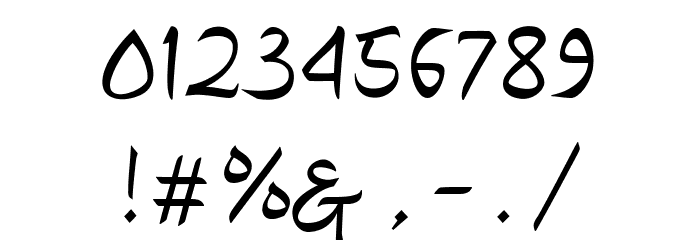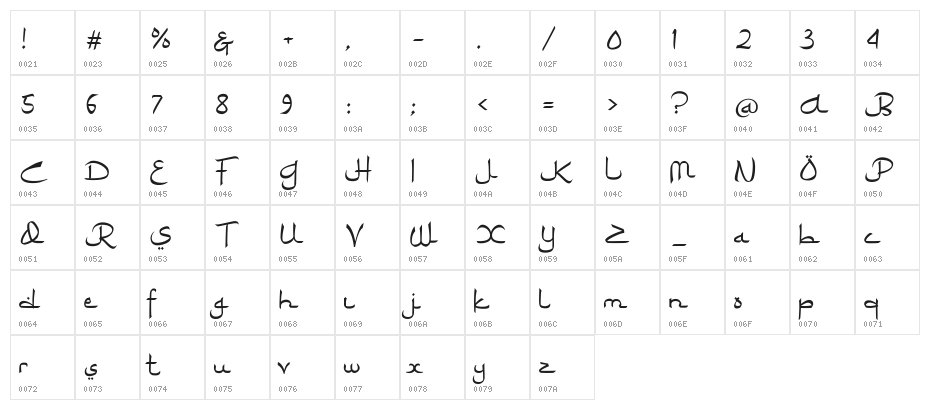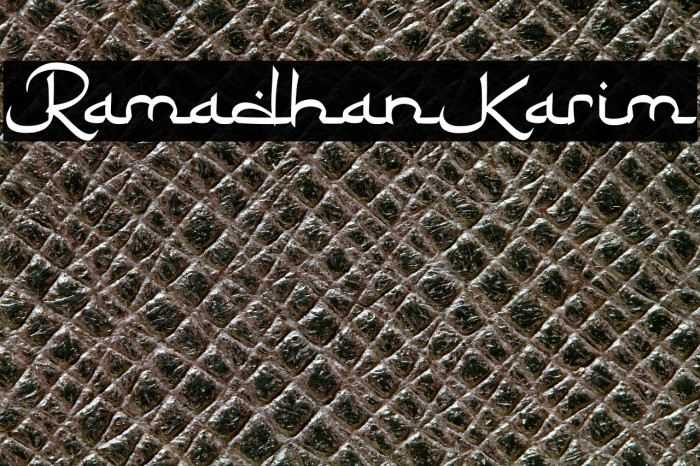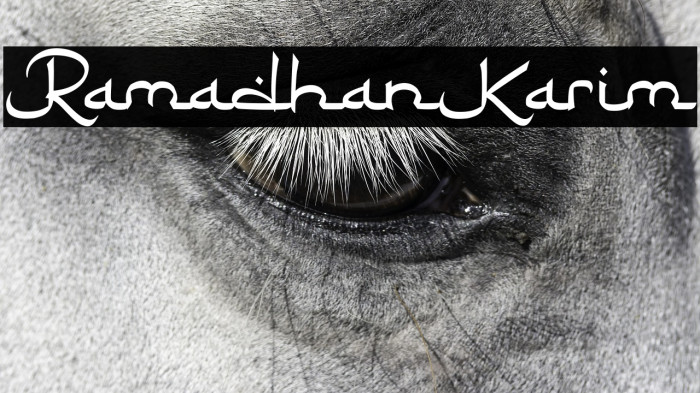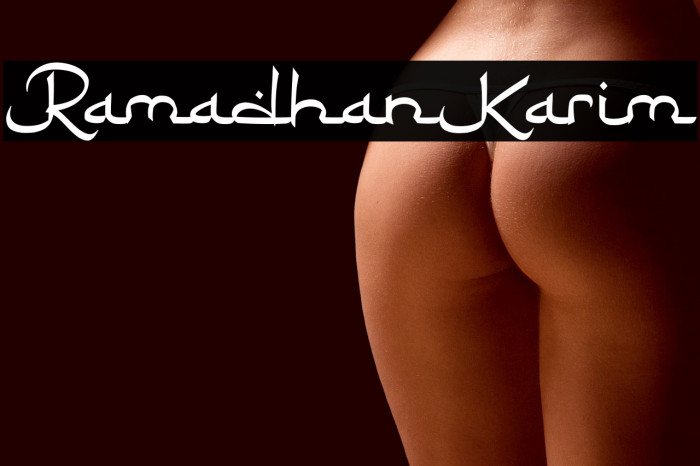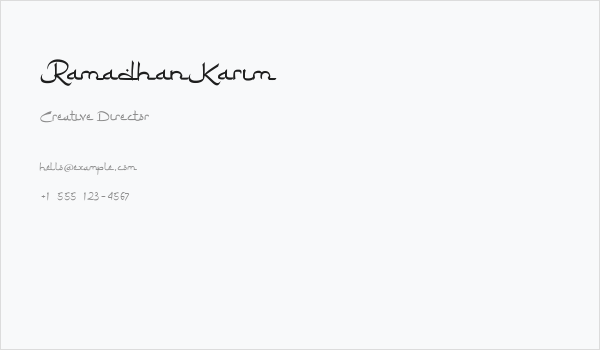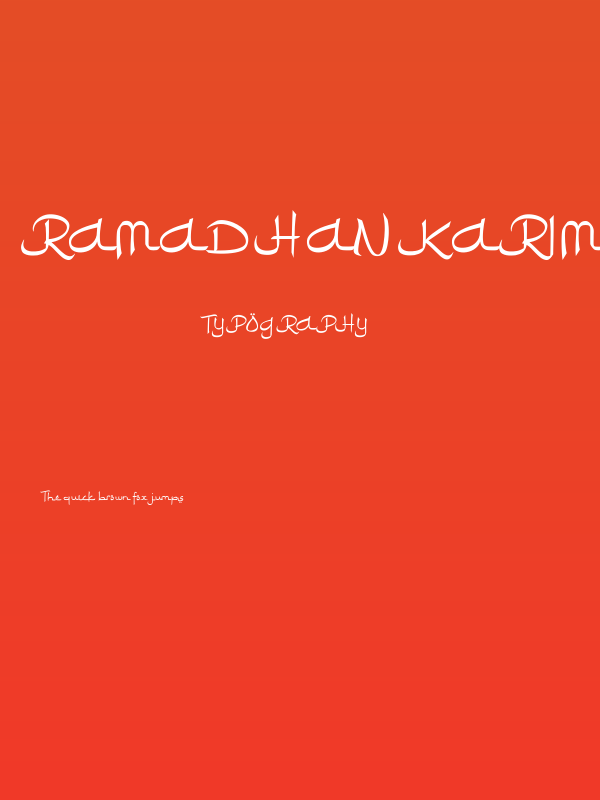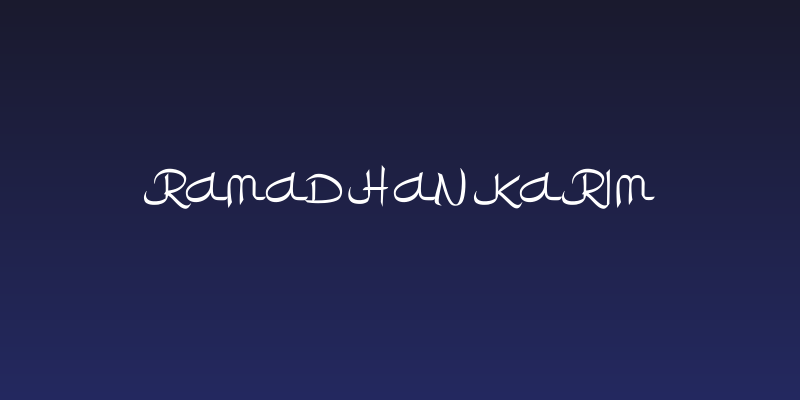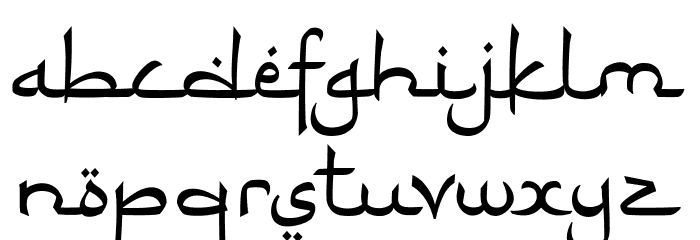
RamadhanKarim Font
RamadhanKarim Description
This font features a unique blend of calligraphic elegance and modern flair, characterized by its flowing, cursive style with a slight slant. The uppercase letters are distinct with elongated strokes and subtle curves, while the lowercase letters maintain a consistent rhythm and fluidity. The numerals are bold and slightly angular, providing a nice contrast to the softer letterforms. Special characters are creatively designed, adding a touch of whimsy to the overall aesthetic. This font's artistic nature makes it suitable for creative projects that require a personal touch.
| Proposed Projects | Ideal for wedding invitations, greeting cards, branding, and artistic posters. |